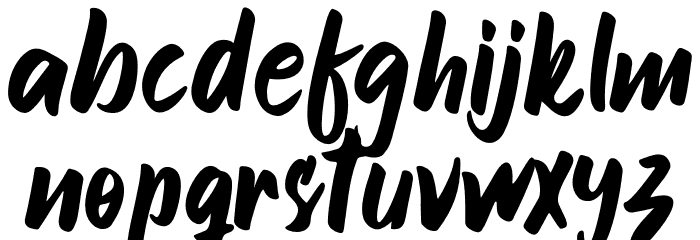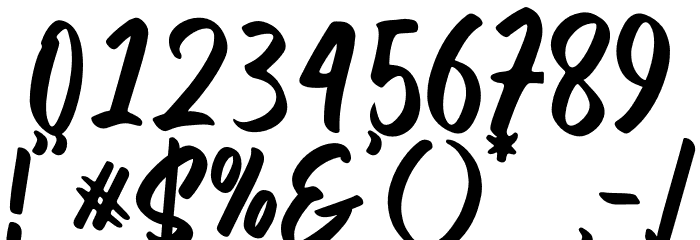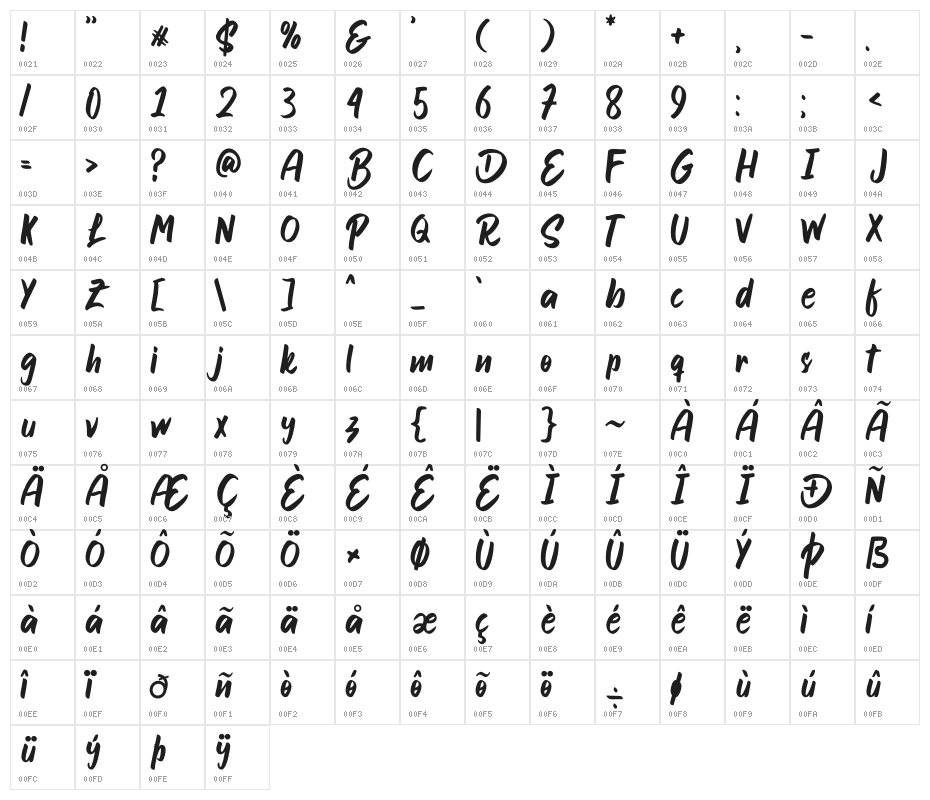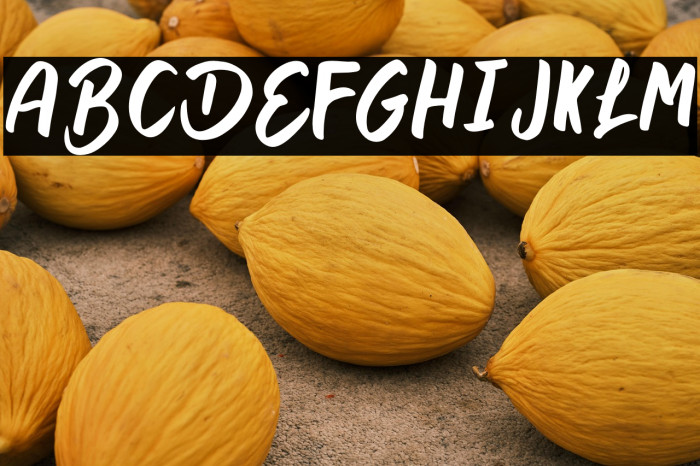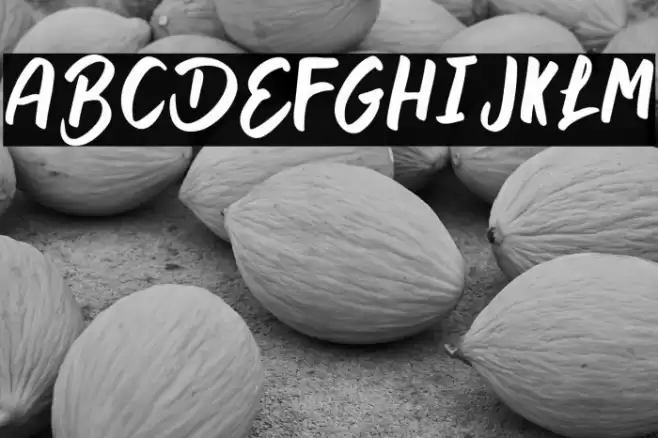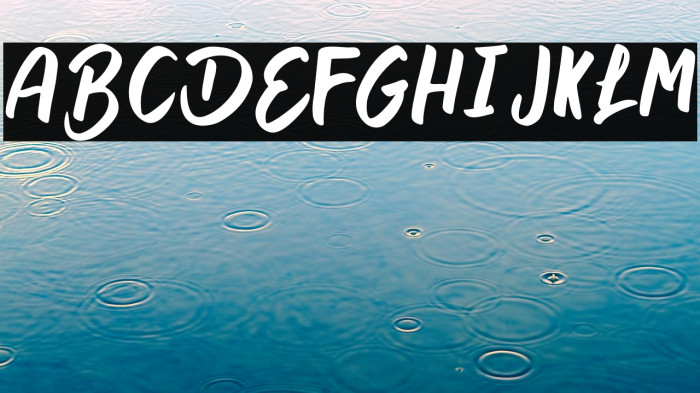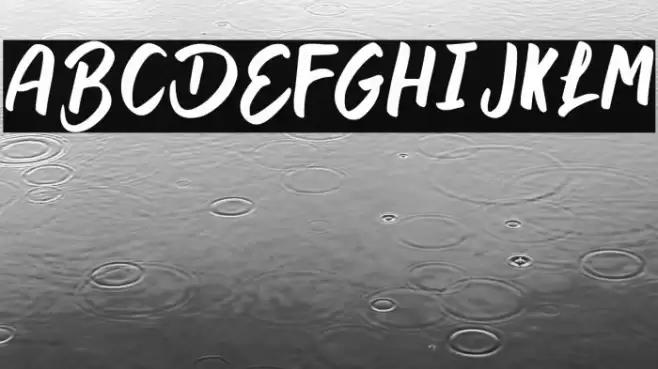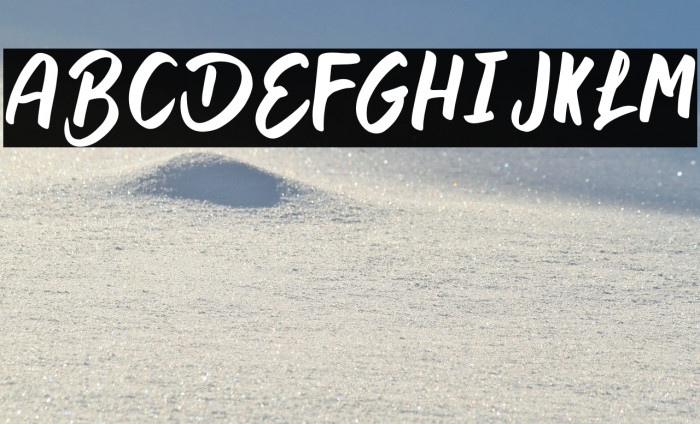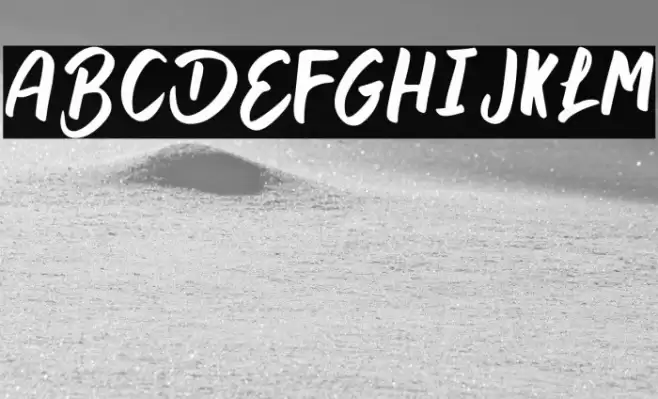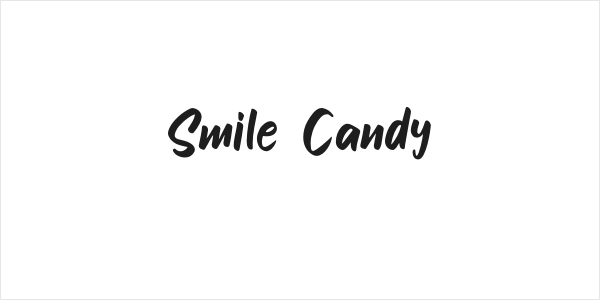
Smile Candy Font
This playful and energetic font features bold, sweeping strokes that give it a lively and dynamic appearance. The characters are crafted with a brush-like quality, offering a sense of movement and fluidity. The uppercase and lowercase letters maintain a consistent style, with rounded edges and a slightly irregular baseline that adds to its charm. The numbers and special characters are equally expressive, making this font versatile for various creative applications. Its bold presence is perfect for capturing attention while maintaining a friendly and approachable vibe.
A bold, brush-style font with dynamic strokes and a playful character.
- Font: Smile Candy
- Proposed Projects: Ideal for branding, posters, social media graphics, and packaging design.